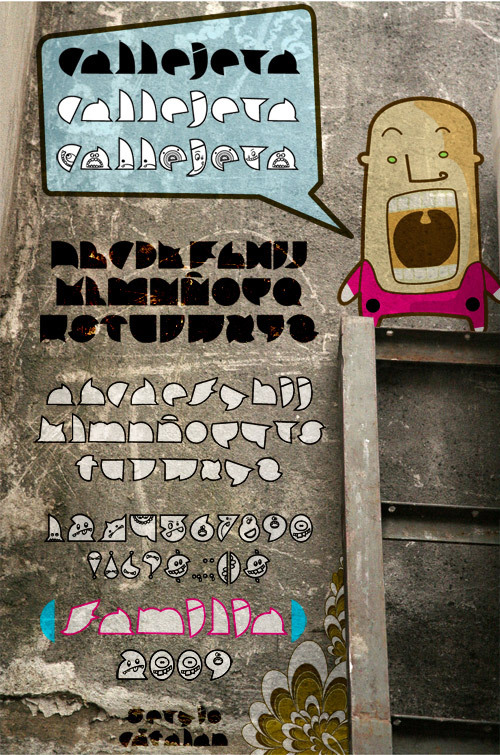
Callejeranegra Negra, designed by Sergio Catalan A., is a free geometric display font built from dense circles, broad verticals, and sharp wedge-shaped cuts. Its letters resemble assembled paper forms, with rounded masses interrupted by compact gaps and angled slices.
Its stark modernist geometry suits experimental posters, electronic music graphics, and fashion branding, especially when typography is expected to function like an abstract emblem. The recurring arcs and cutouts also fit architecture publishing and gallery events, where their constructed shapes echo diagrams, floor plans, and hard-edged collage.
The font consists of three variants.